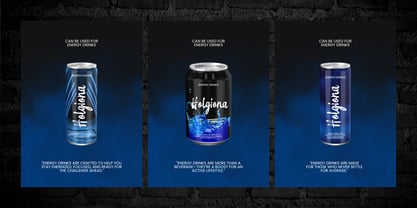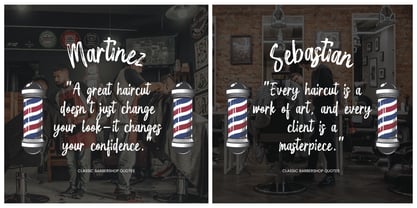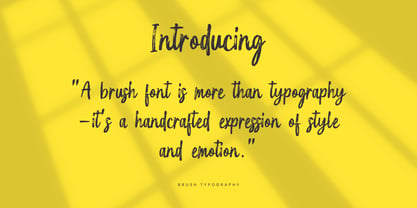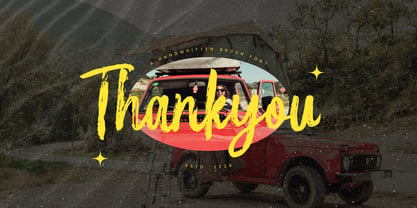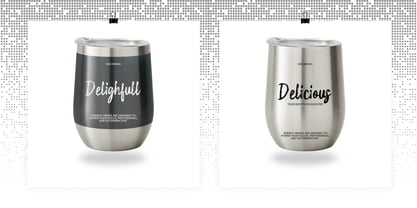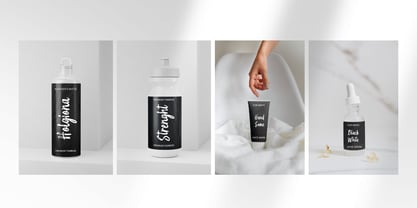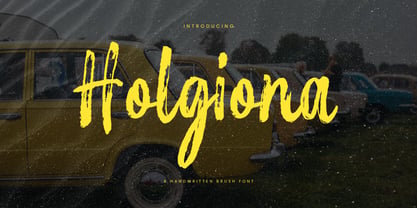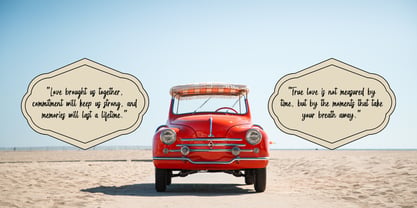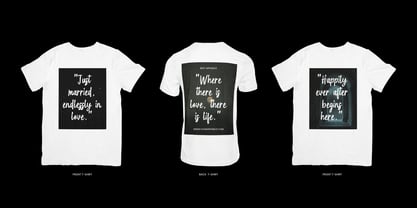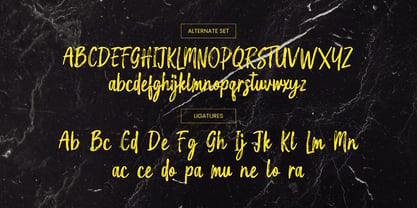
Holgiona
by Gatype
The Holgiona Font Family was designed by khaidir and published by Gatype. Holgiona contains 1 styles. More about this family
Holgiona is a handwritten display font designed for modern creative projects. With a bold yet casual look, it works beautifully for branding, social media posts, product packaging, event posters, and more.
Clean and confident,Holgiona brings personality to your designs without feeling overdone — perfect for layouts that need a fresh, handcrafted vibe.
Designers: khaidir
Foundry: Gatype